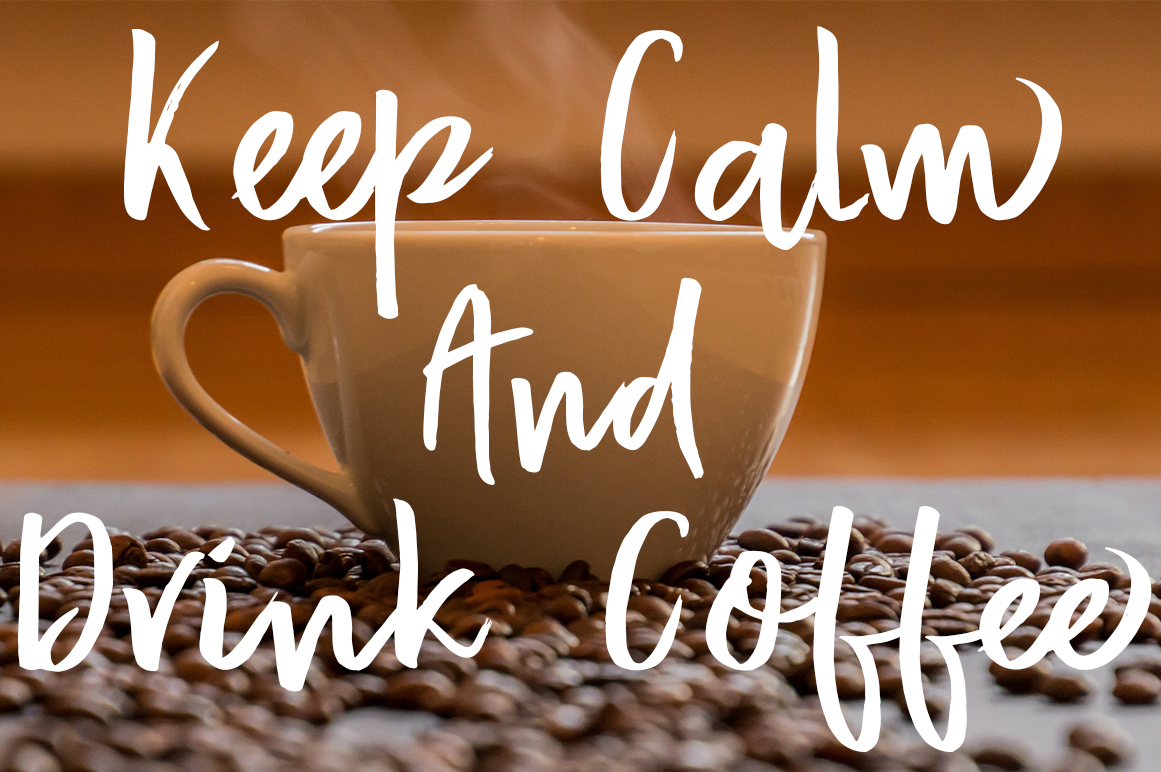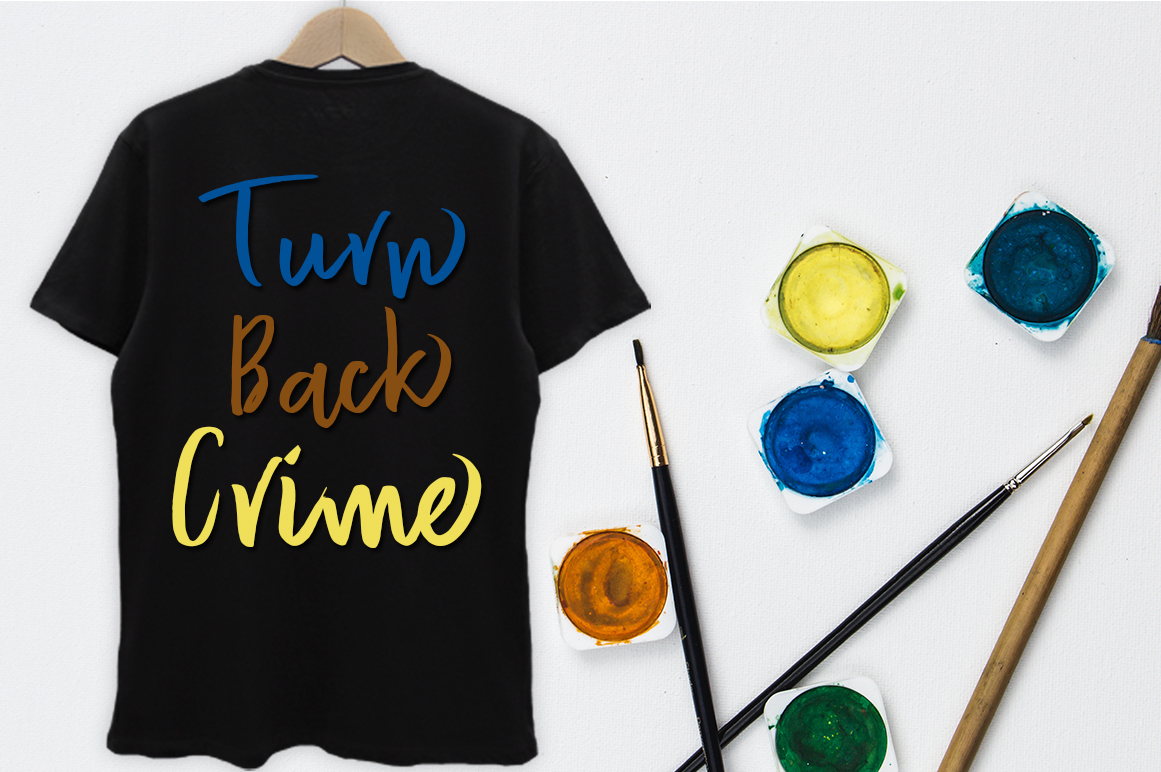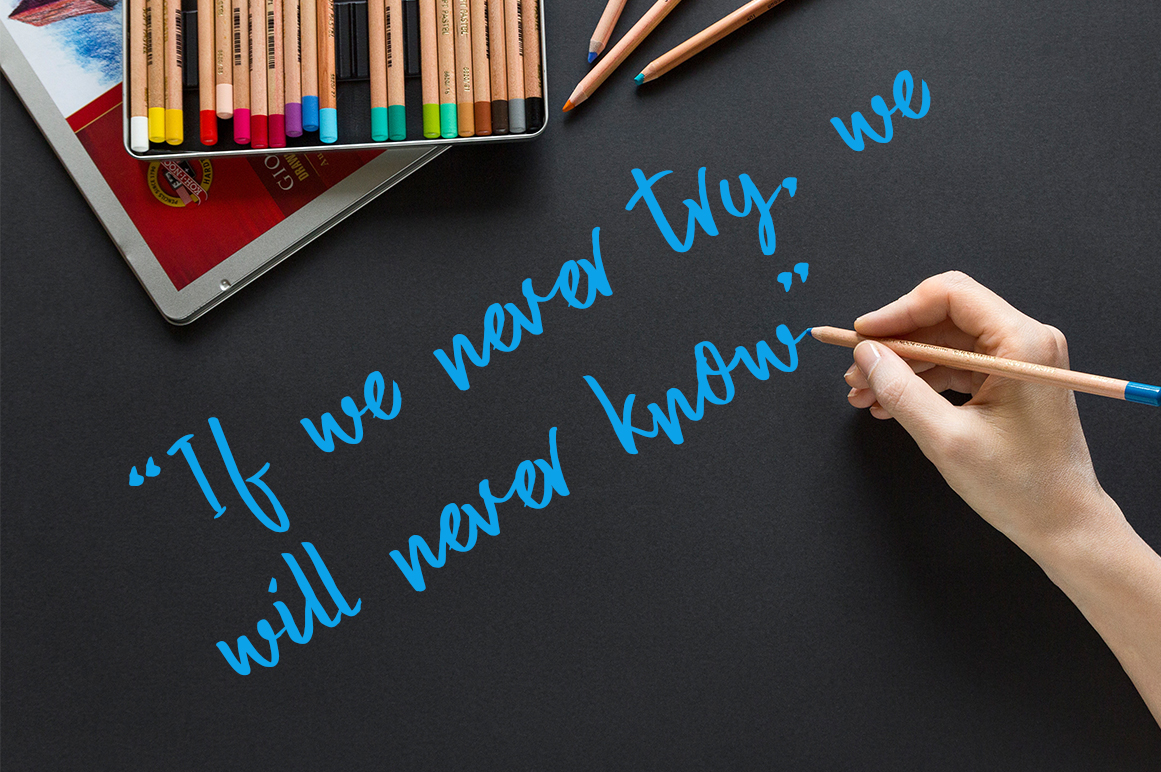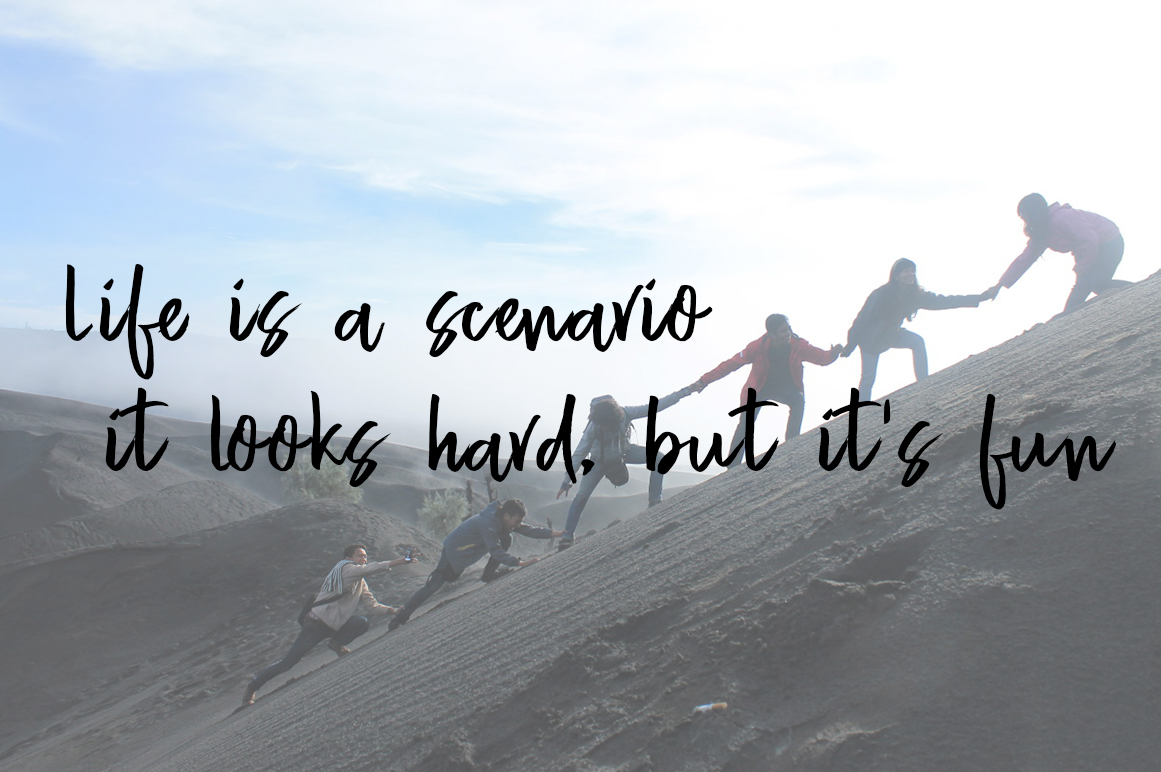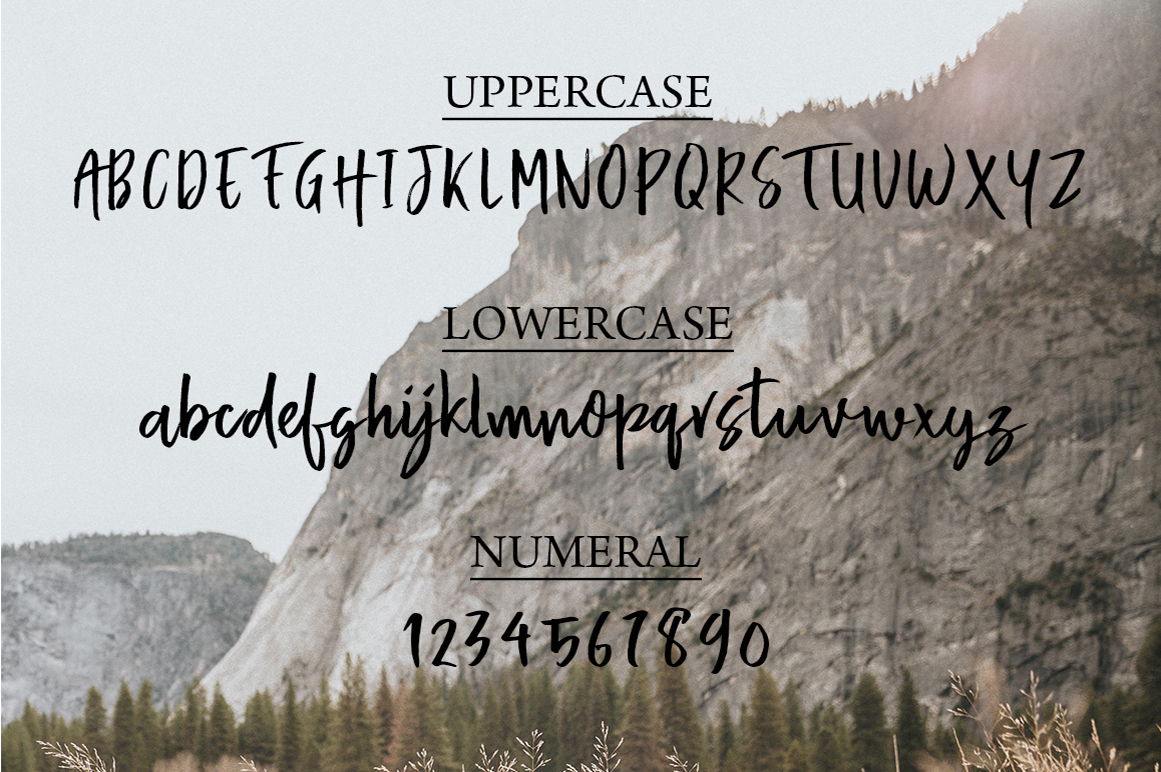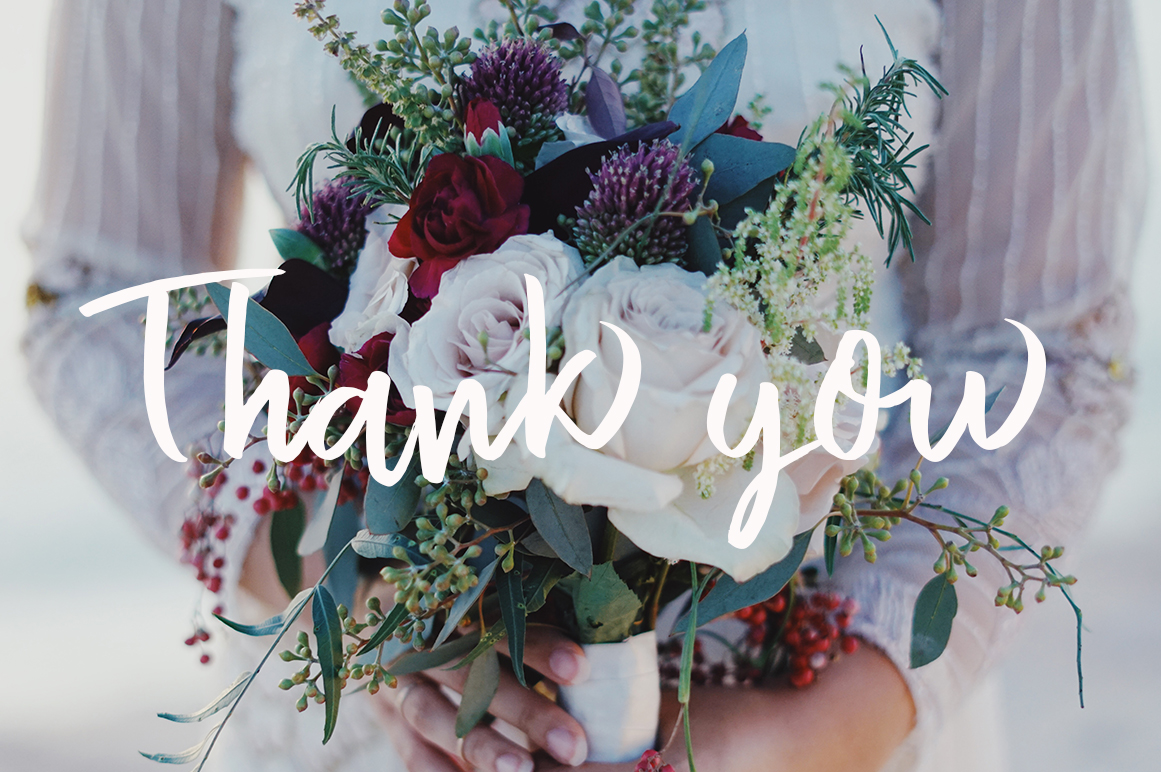
The Adventure Font: A Relaxed yet Modern Script for Your Creative Projects
I’ll never forget the design moment when I stumbled upon the Adventure font. I was working on a branding project for a travel company, and I was struggling to find the perfect script font that could convey a sense of adventure and relaxation at the same time. The client wanted a font that would evoke feelings of excitement and freedom, but also be elegant and sophisticated. That’s when I discovered Adventure, a gorgeous, relaxed hand-drawn font that exceeded my expectations.
- ✅ Readability: Adventure is incredibly readable, even at small font sizes, making it perfect for body text or captions.
- ✅ Versatility: This font combines modern sensibility with classic style, allowing it to fit seamlessly into any design project.
- ✅ Elegant and Relaxed: The hand-drawn feel of Adventure gives it a unique, laid-back vibe that’s perfect for travel, lifestyle, or food-related projects.
- ⚠️ Limited use in formal contexts: While Adventure is elegant, its relaxed nature might not make it the best fit for very formal or corporate projects.
- ⚠️ Glyph coverage: As with many script fonts, some users might find the glyph coverage limited, particularly for non-English languages.
Exploring OpenType Features, Glyphs, and Stylistic Alternates
Adventure font comes with a range of OpenType features that allow for more creative flexibility. Users can access:
- Stylistic Alternates: Offers variations of letters and numbers for more customized looks.
- Glyphs: Includes additional characters and symbols that can enhance your designs.
Adventure was designed with the intention of capturing the essence of exploration and freedom. The designer aimed to create a font that feels both modern and timeless, perfect for projects that require a touch of elegance and adventure. The relaxed, hand-drawn style is meant to evoke feelings of travel, exploration, and joy.
Q: What makes Adventure font unique?
A: Adventure font is unique due to its relaxed, hand-drawn style that combines modern sensibility with classic elegance.
Q: Is Adventure suitable for body text?
A: Yes, Adventure is highly readable and can be used for body text, especially in projects where a personal touch is desired.
Q: Does Adventure support multiple languages?
A: The font may support multiple languages, but it’s best to check the glyph coverage to ensure it meets your specific needs.